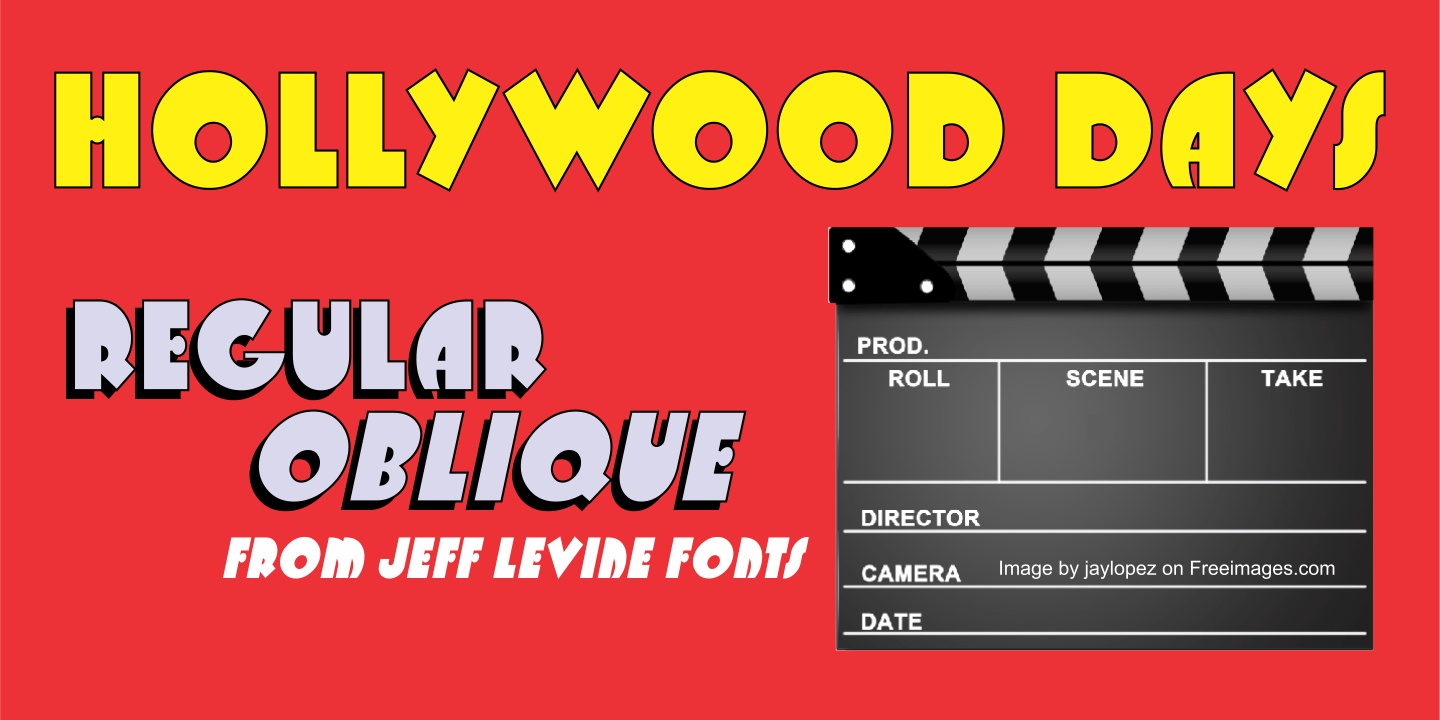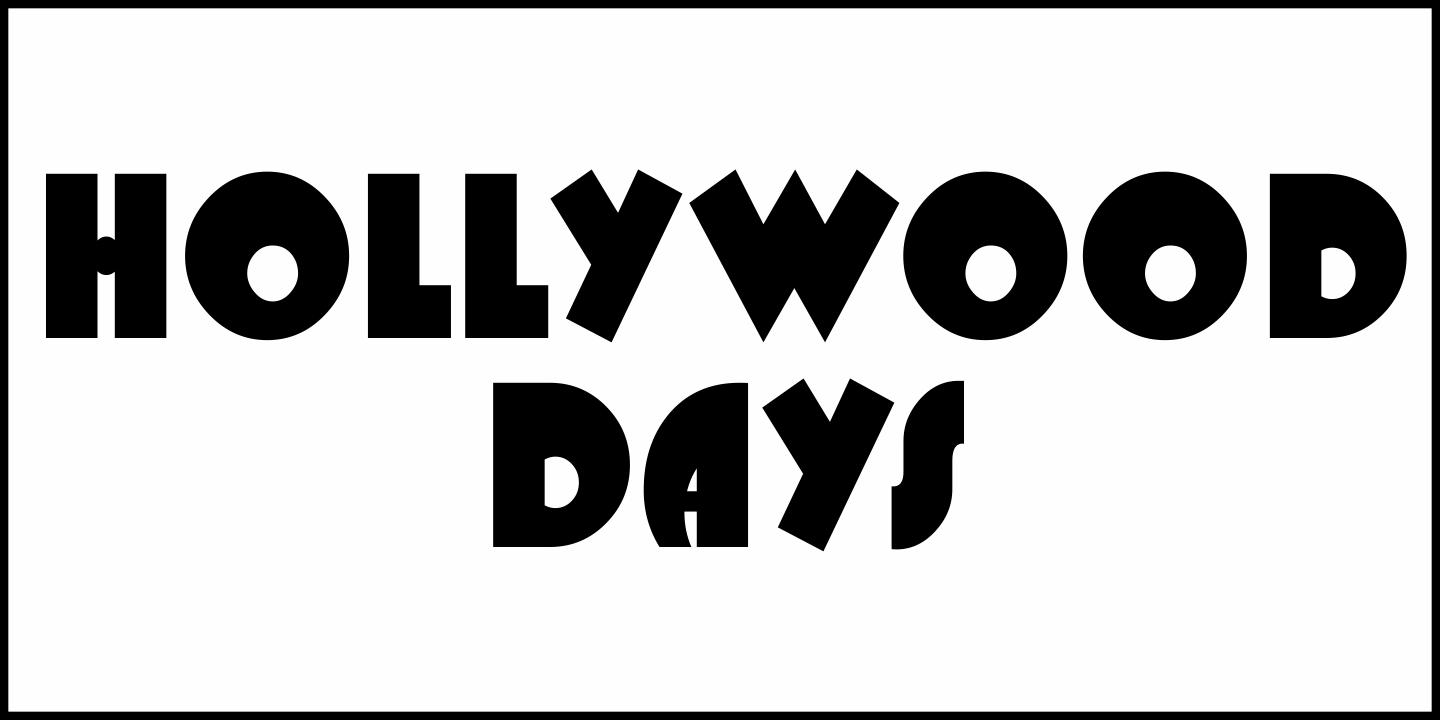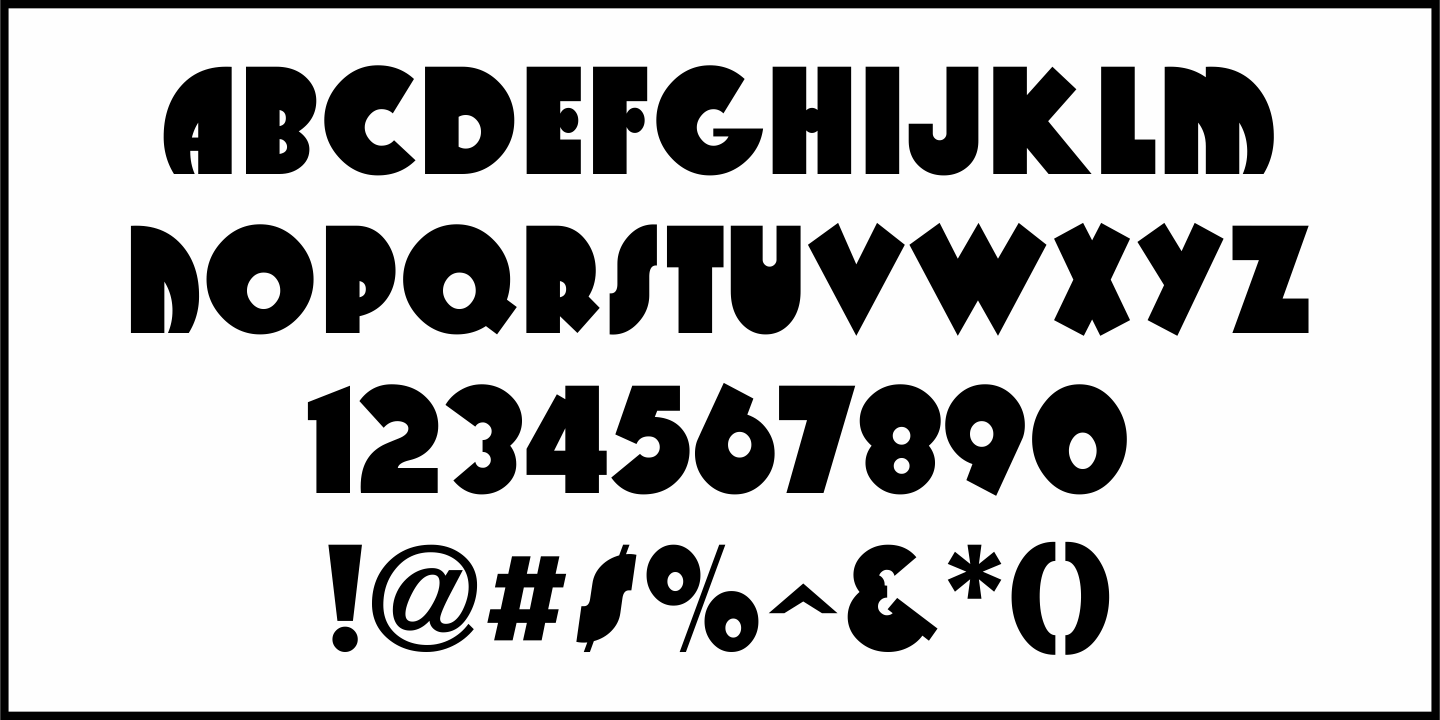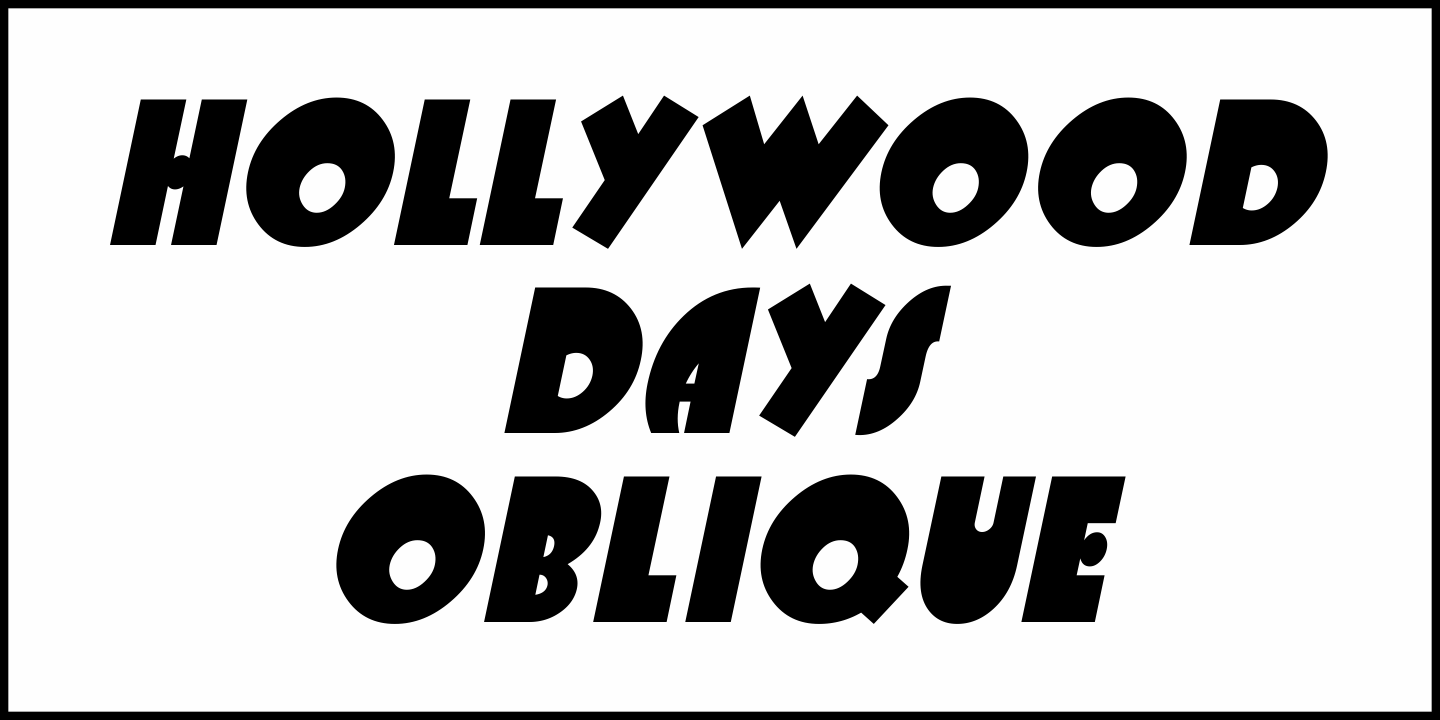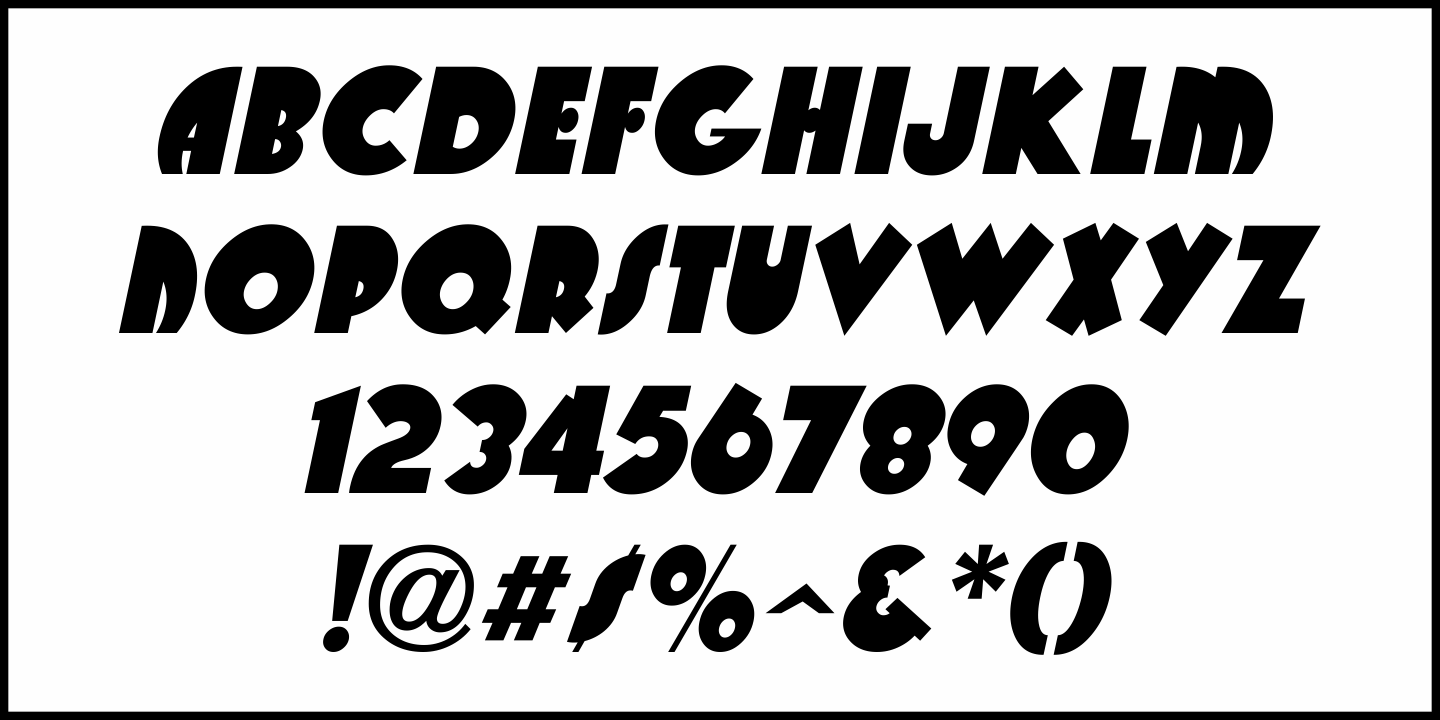
Hollywood Days
The hand lettered title on a movie poster for the 1928 film "Easy Virtue" was done in an ultra bold, casual sans serif design.
This early bit of Art Deco typography is now available as Hollywood Days JNL in both regular and oblique versions.